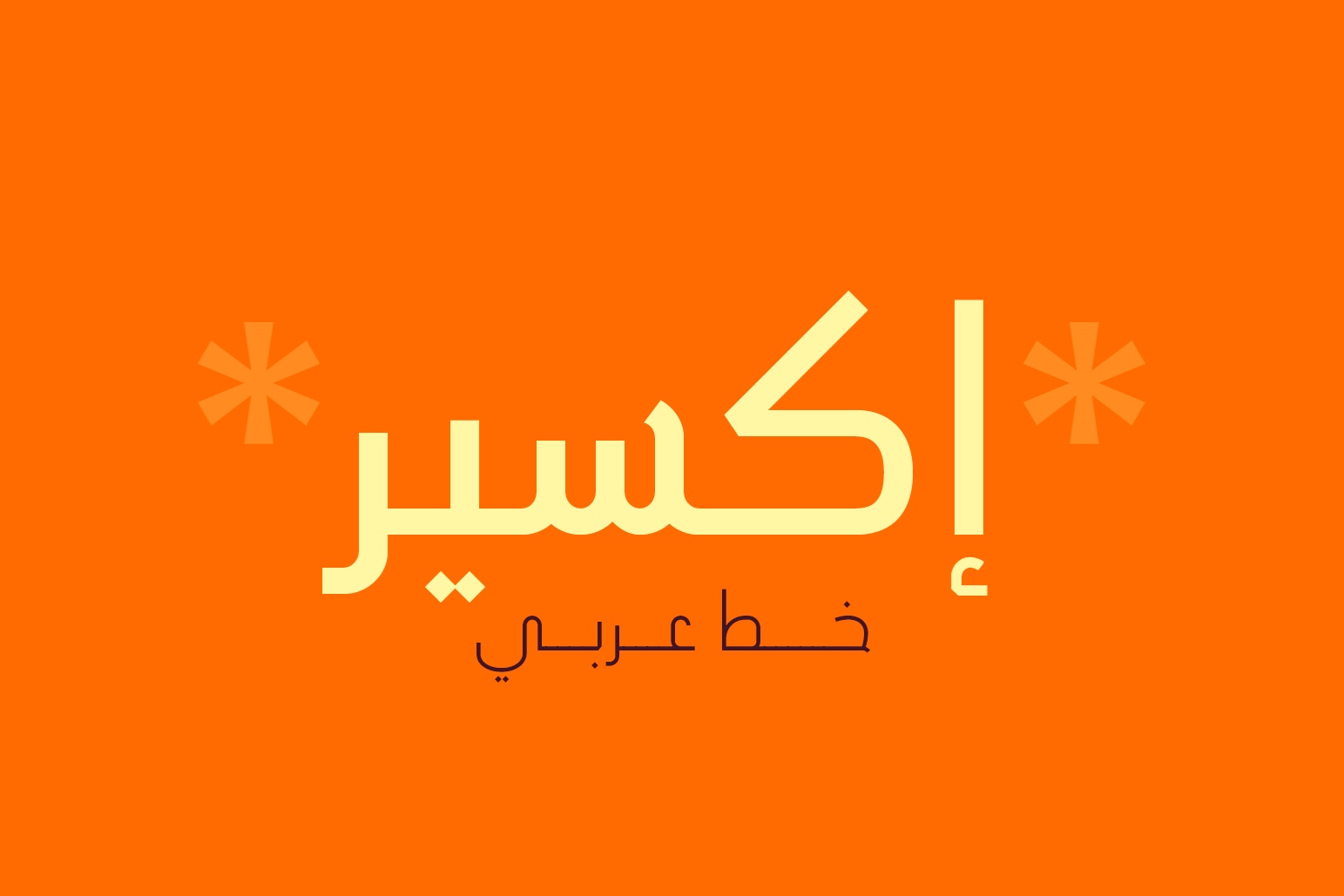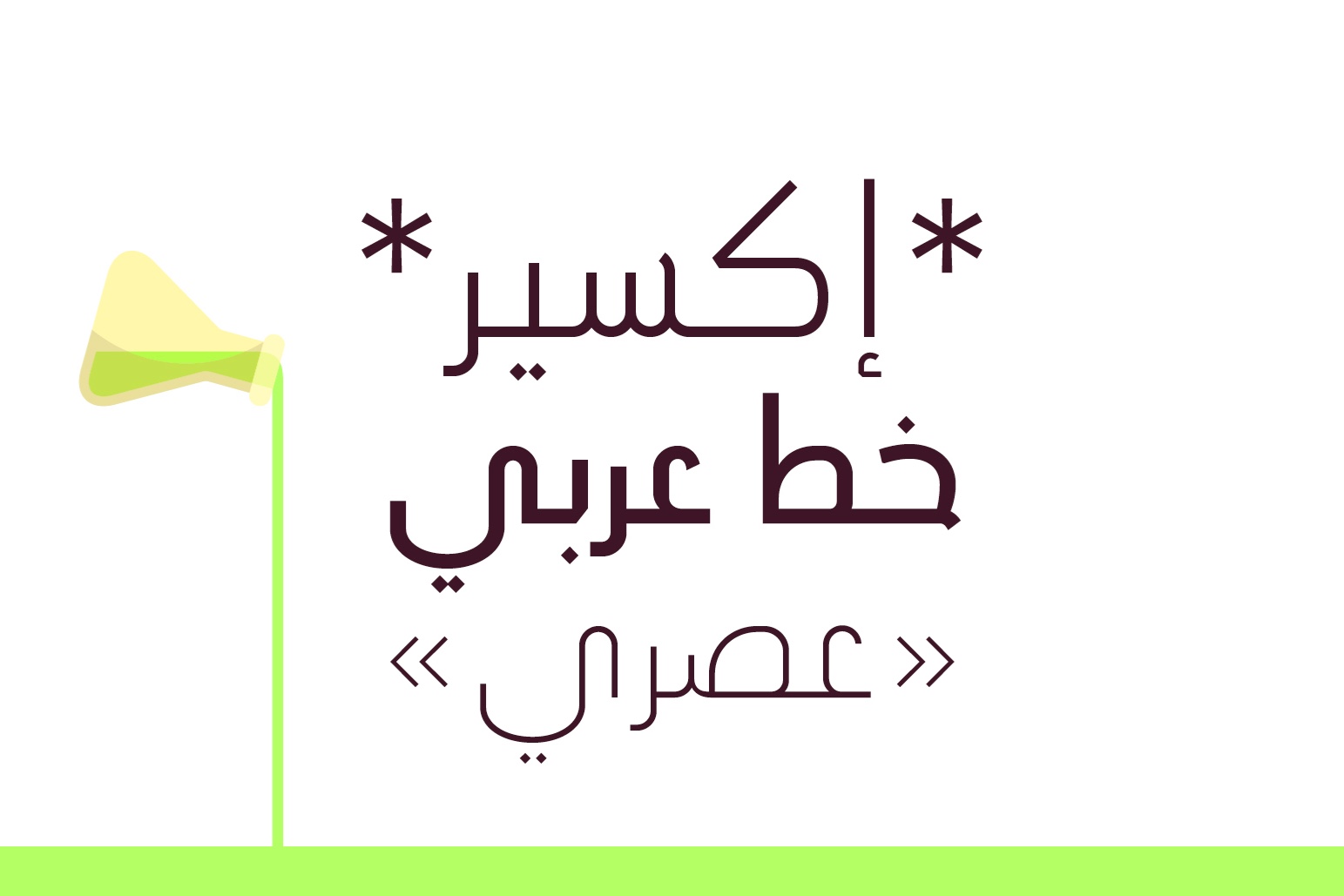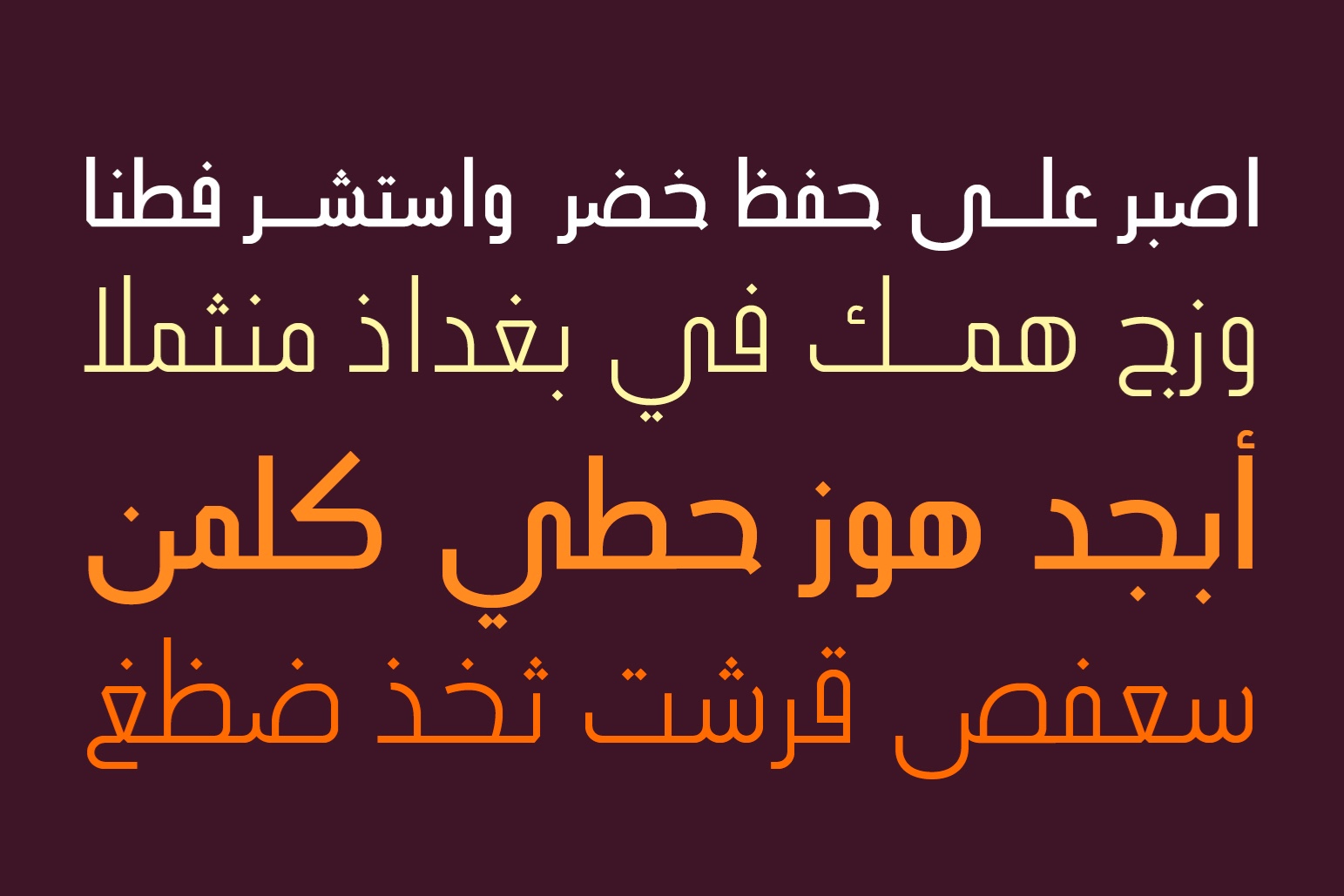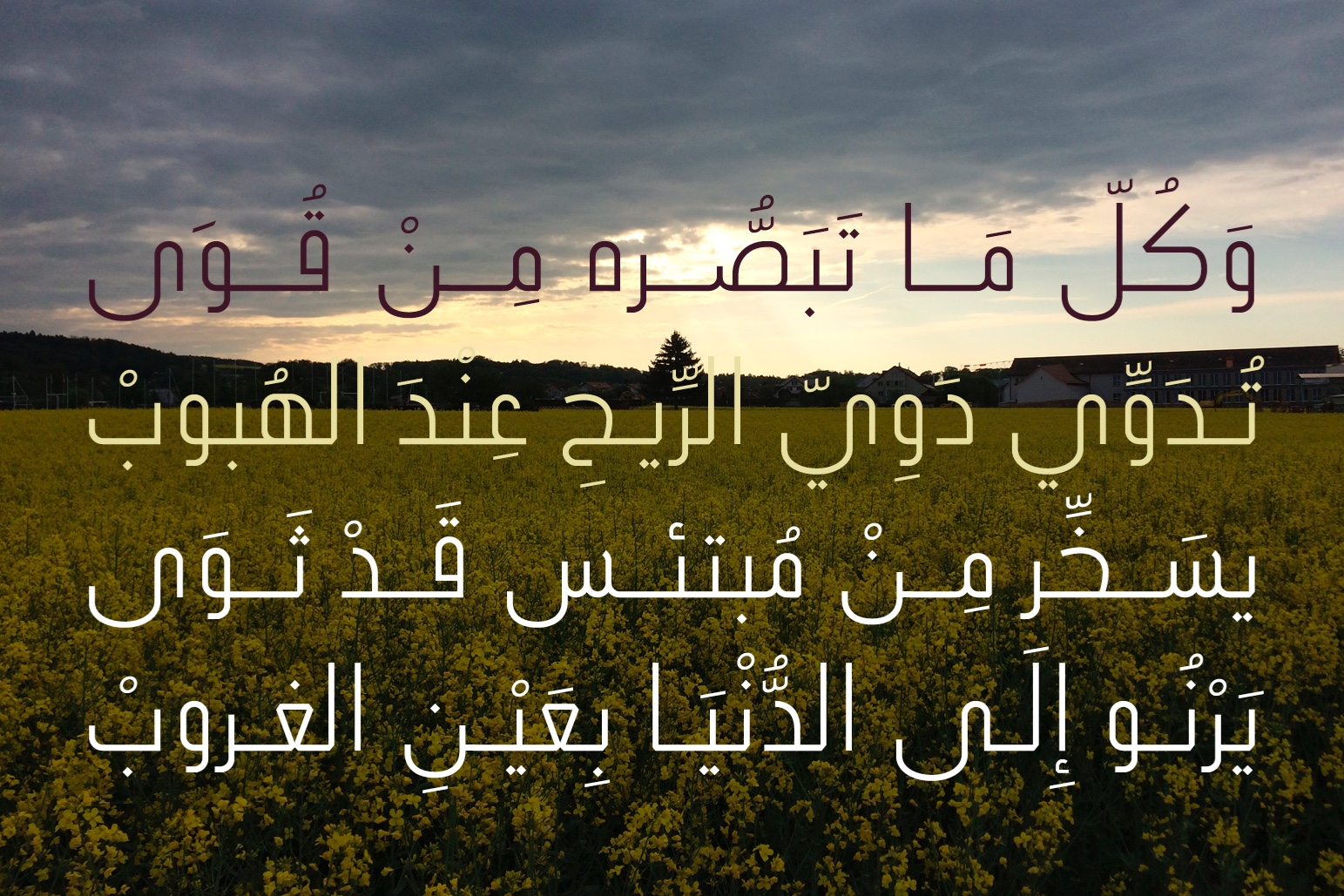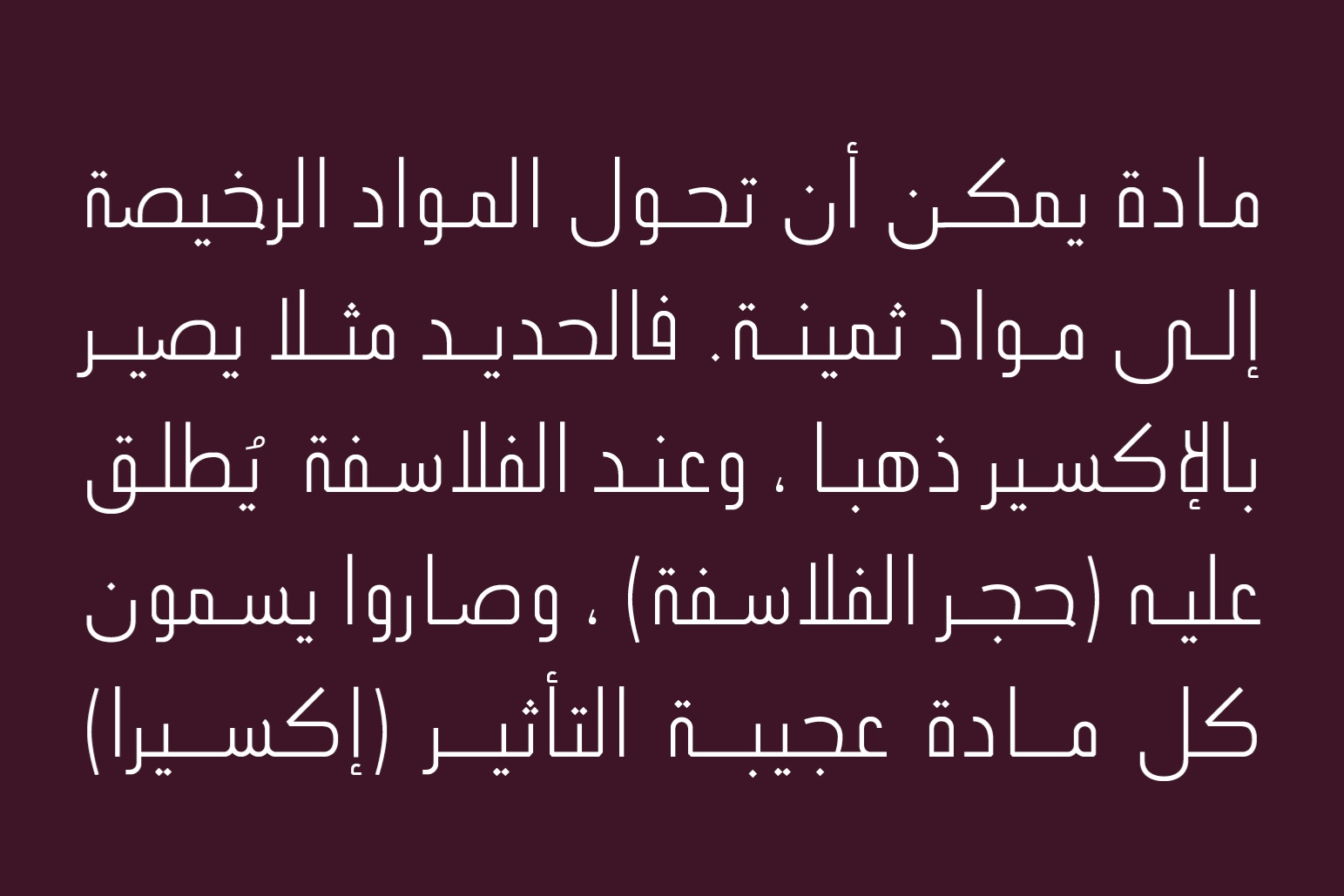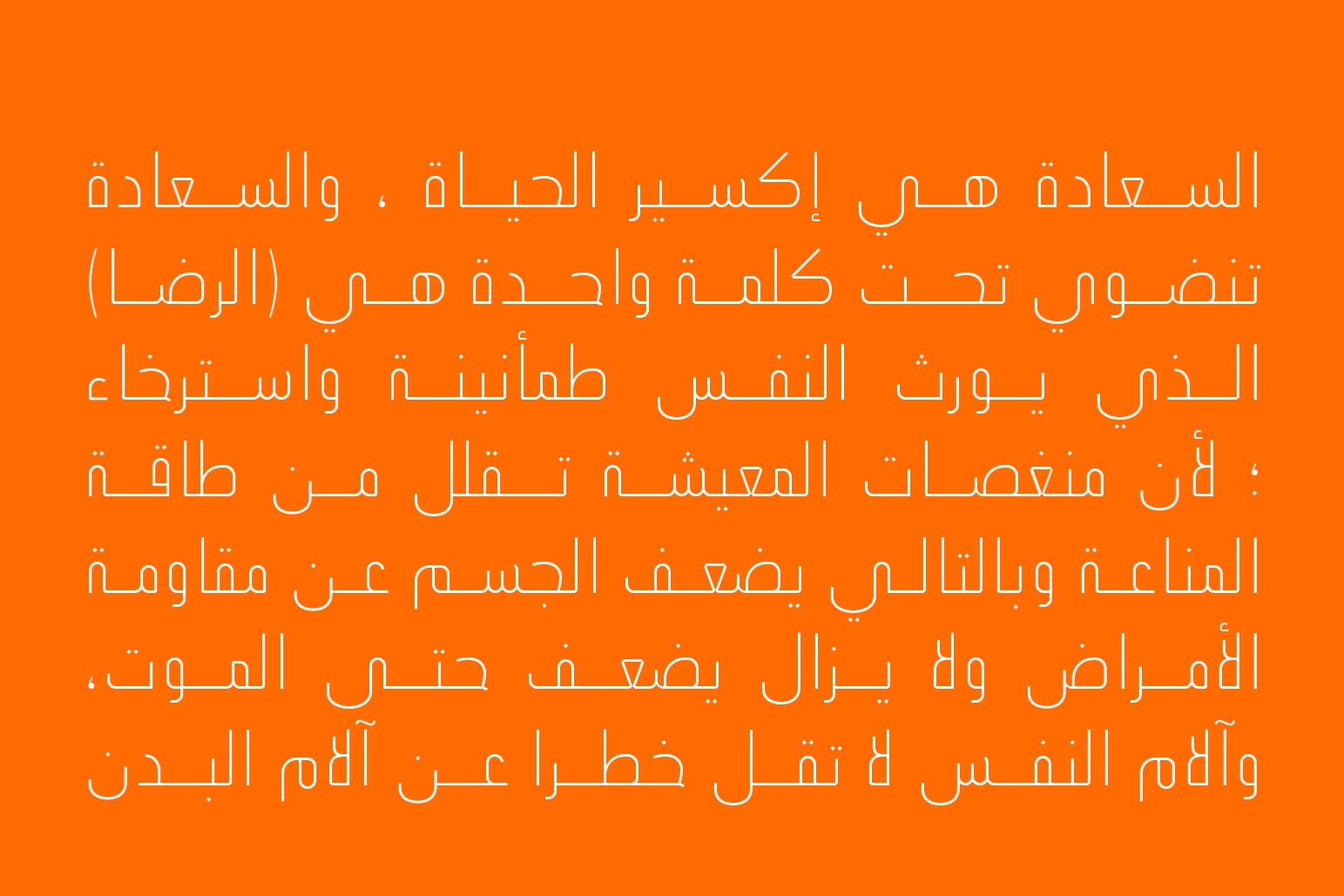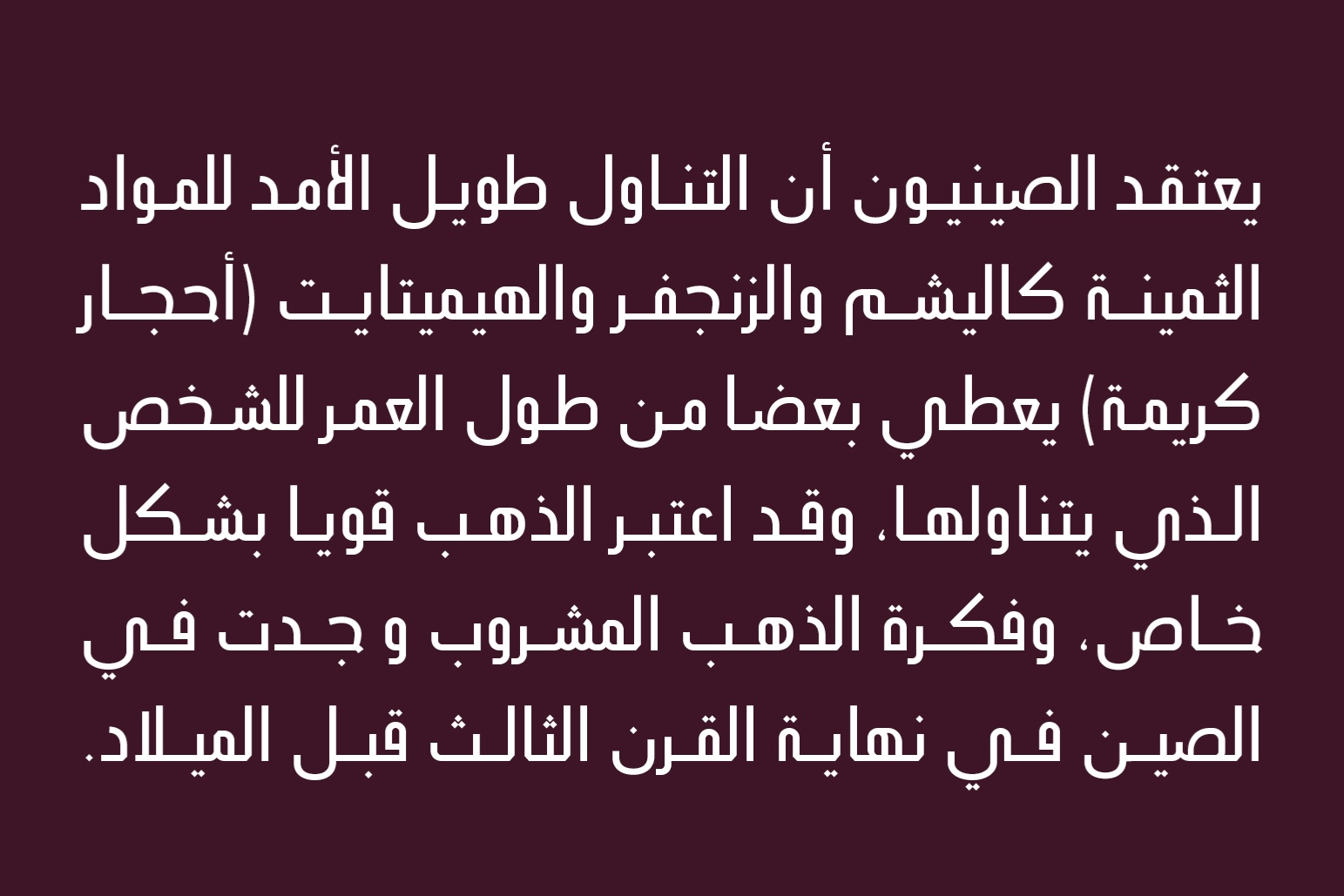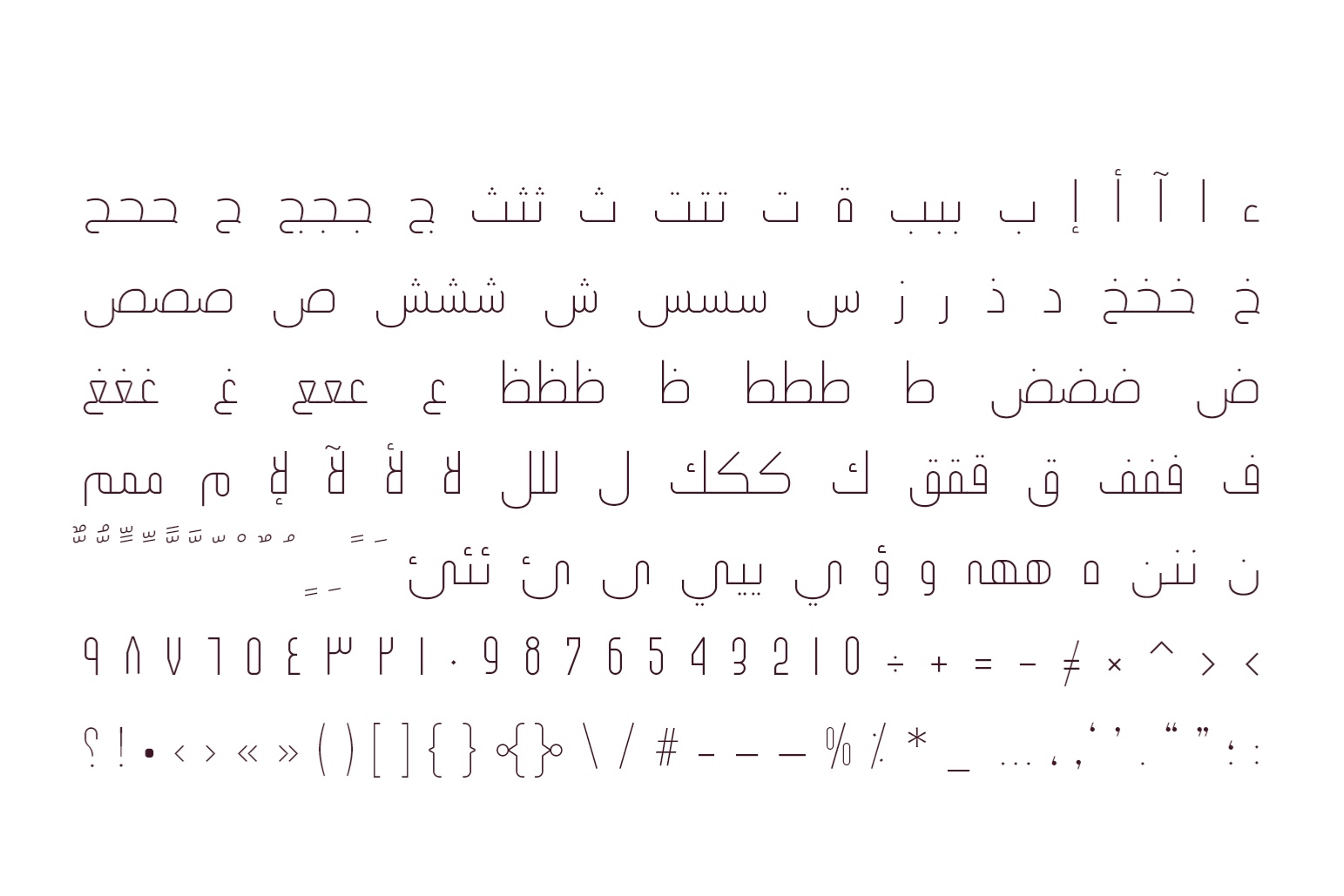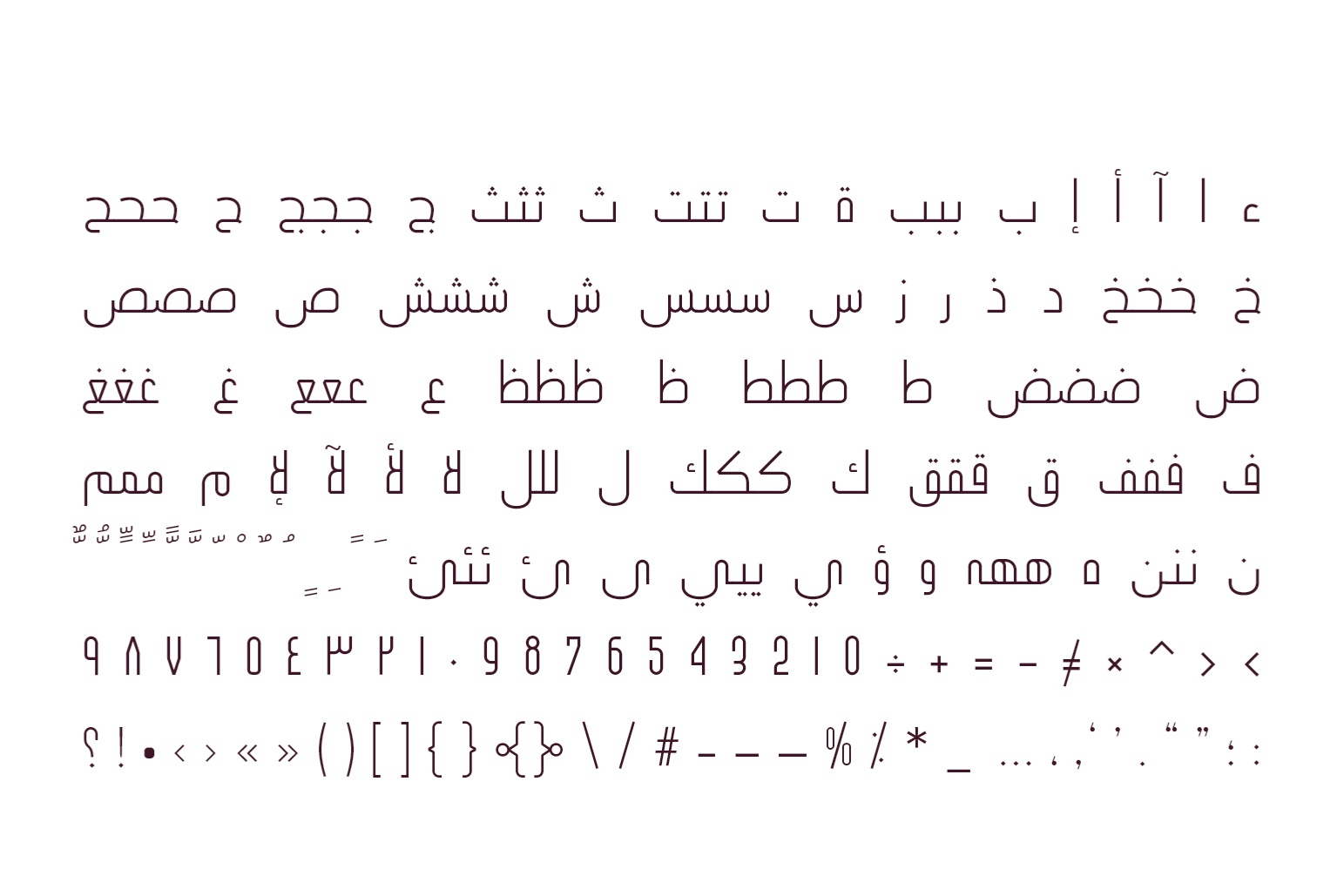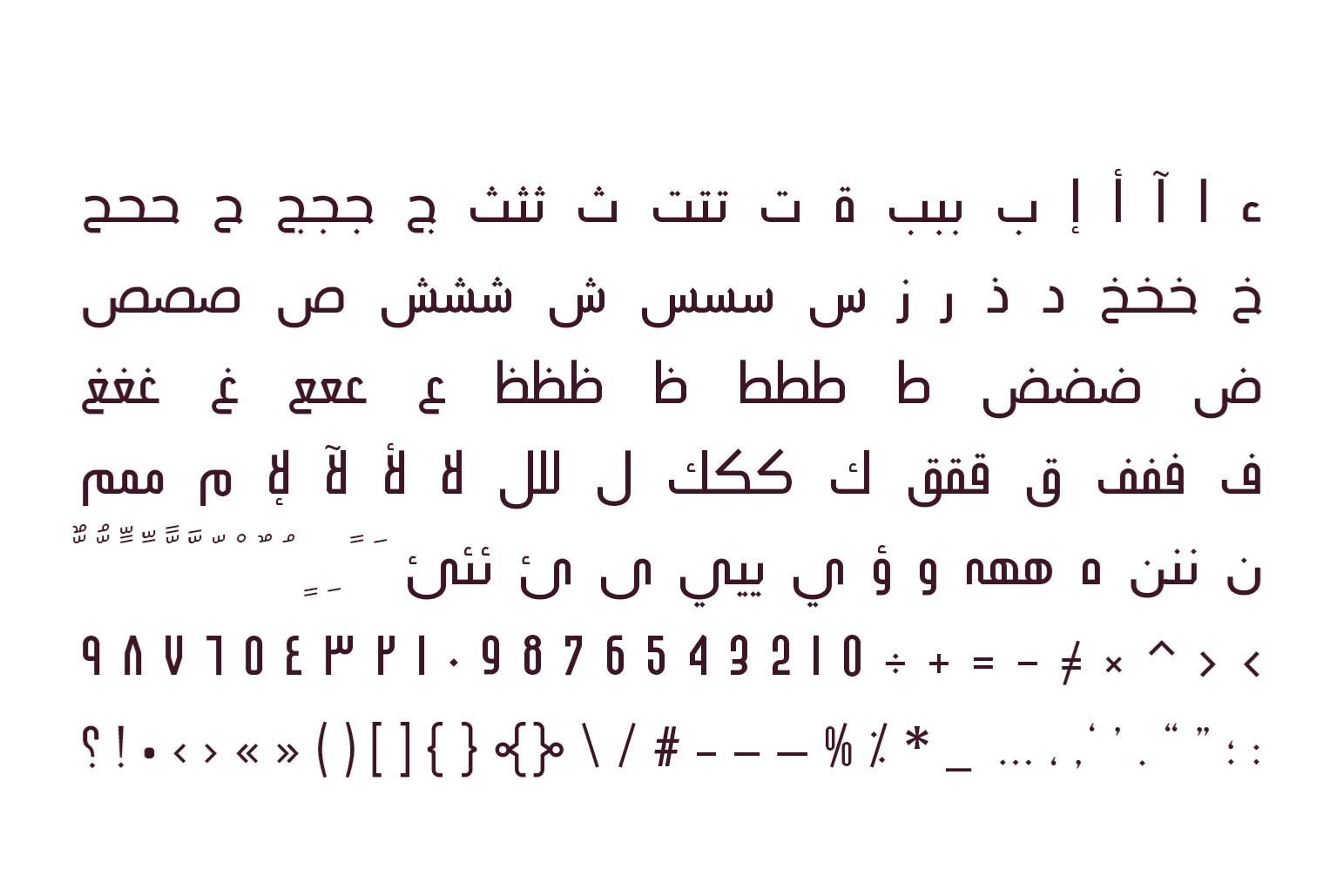
Ikseer is an Arabic typeface that combines simplicity with elegance. The font family supports Arabic, Farsi and Urdu and it consists of three weights: namely, Light, Regular and Bold. Ikseer suits print and publication design in addition to web and mobile applications.
240+ Characters
Light, Regular and Bold